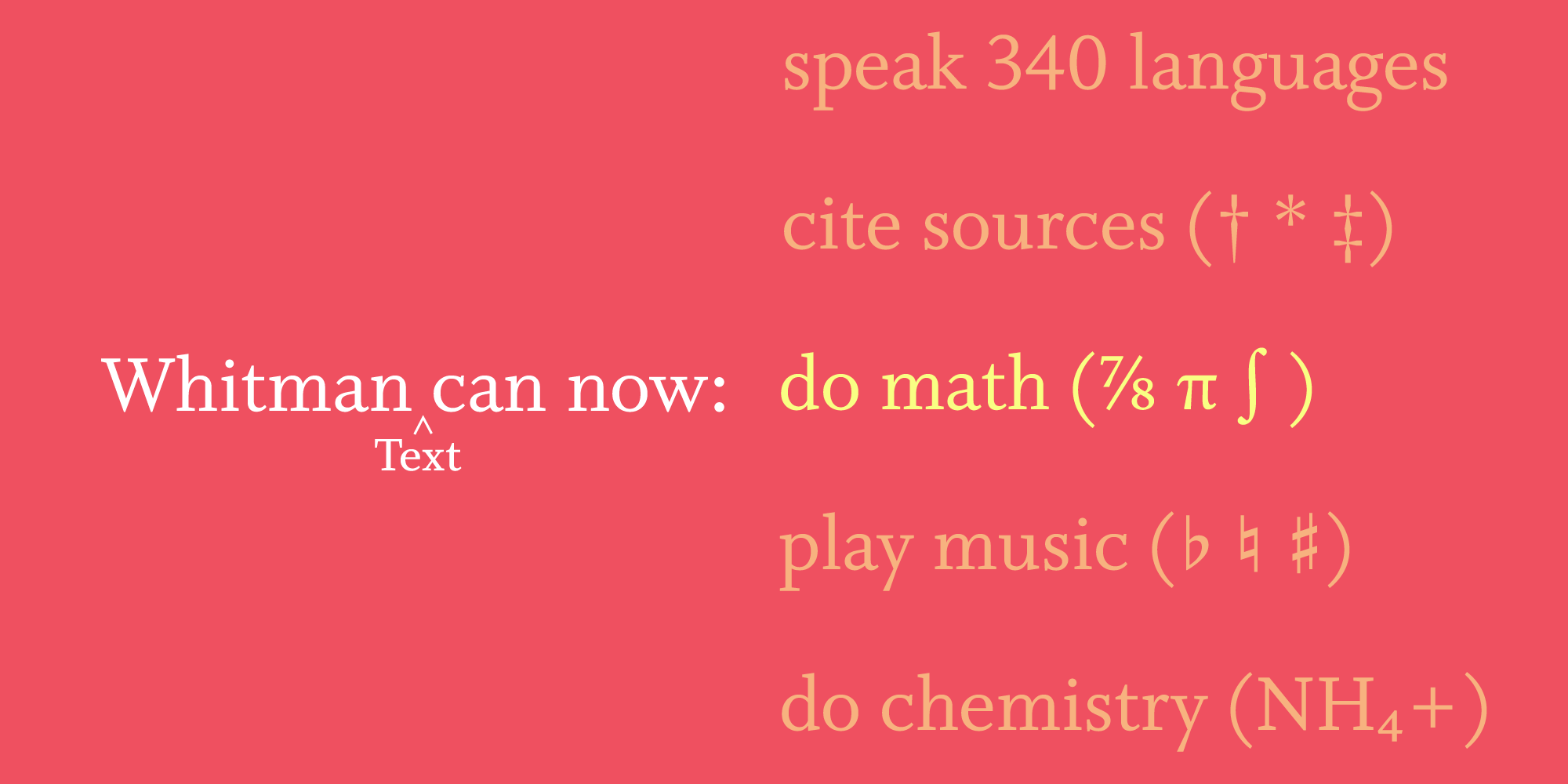
A former book designer and creative director, Kent Lew has been designing type since the early 2000s. His first retail font family, Whitman, was originally published by Font Bureau in 2003 and has been used extensively in books, newspapers, and magazines, including Brides, Women’s Health, Fortune, and W.
Kent has provided custom typeface design for prominent publications such as Minneapolis Star Tribune, New Brunswick Telegraph-Journal, and TIME magazine. He produced font specimens and marketing materials for Font Bureau for many years, has performed font engineering and production work for Carter & Cone, and advised Japan’s Morisawa foundry on the design of extended Latin character sets. He also consults for book and magazine publishers on type selection, typography standards, and text production workflows.
His primary interest lies in text typeface design, drawing heavily on his own experience specifying and setting type, and he is greatly influenced by the work of mid-20th century designers like Dwiggins, Ruzicka, and Blumenthal.